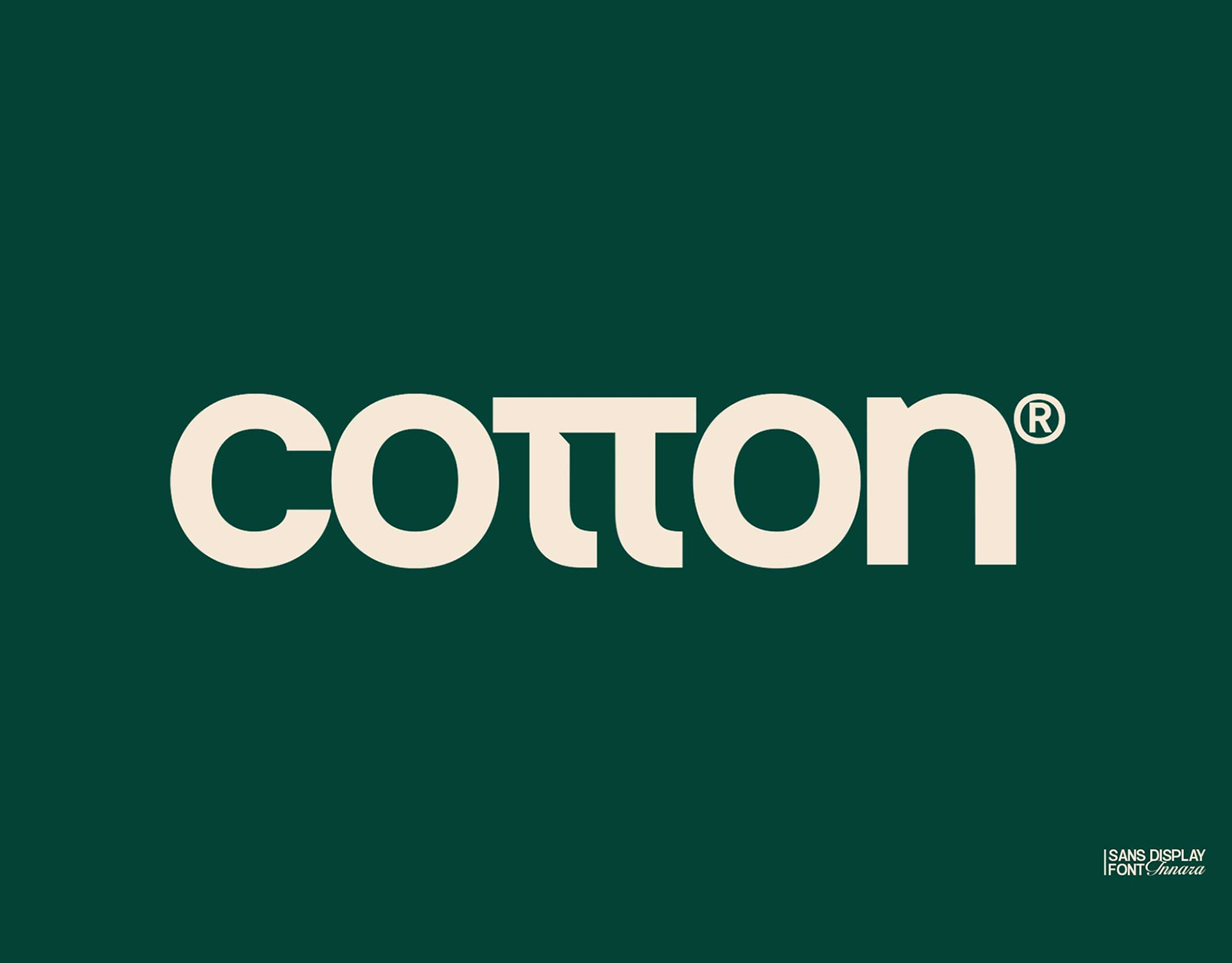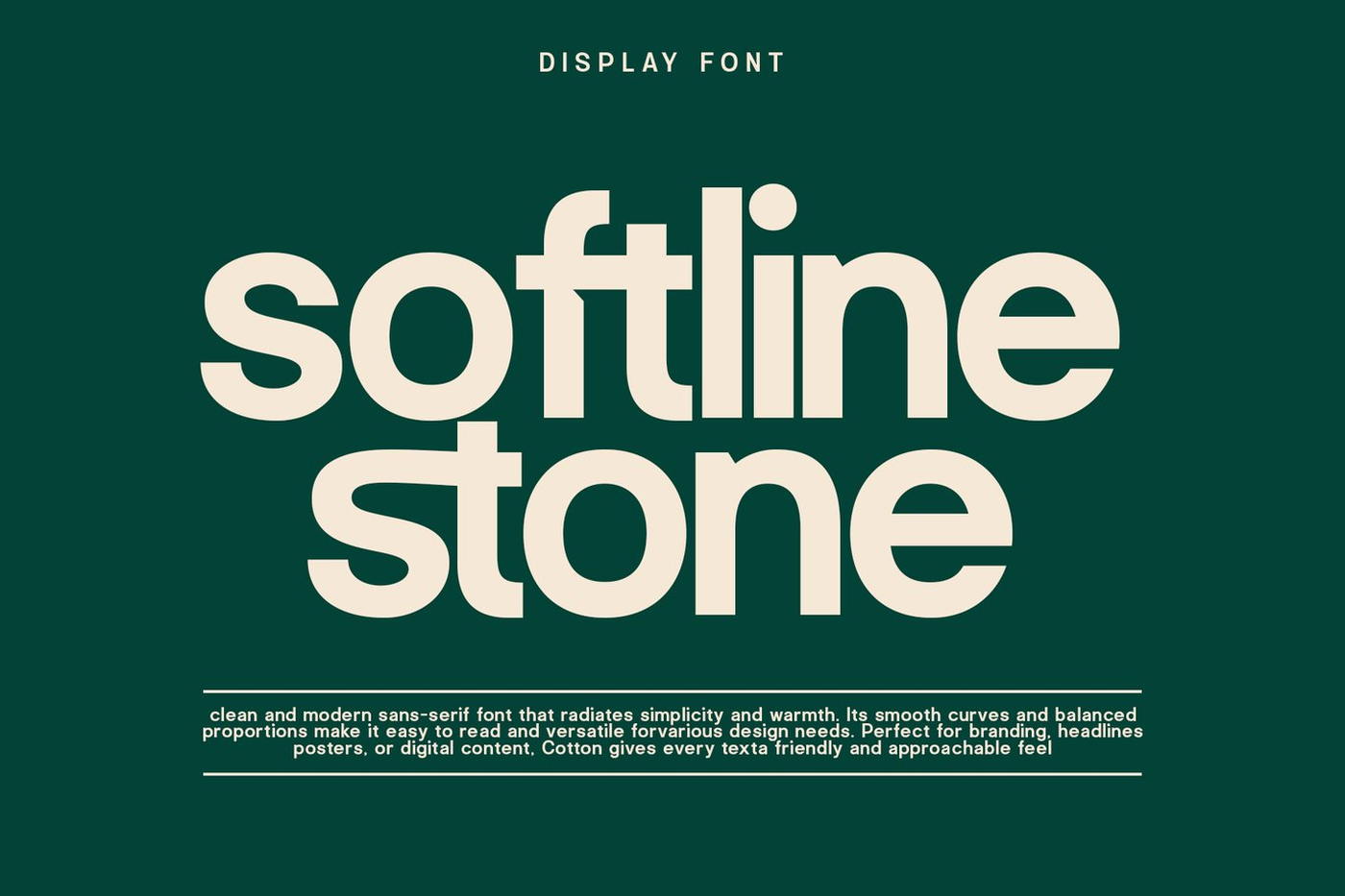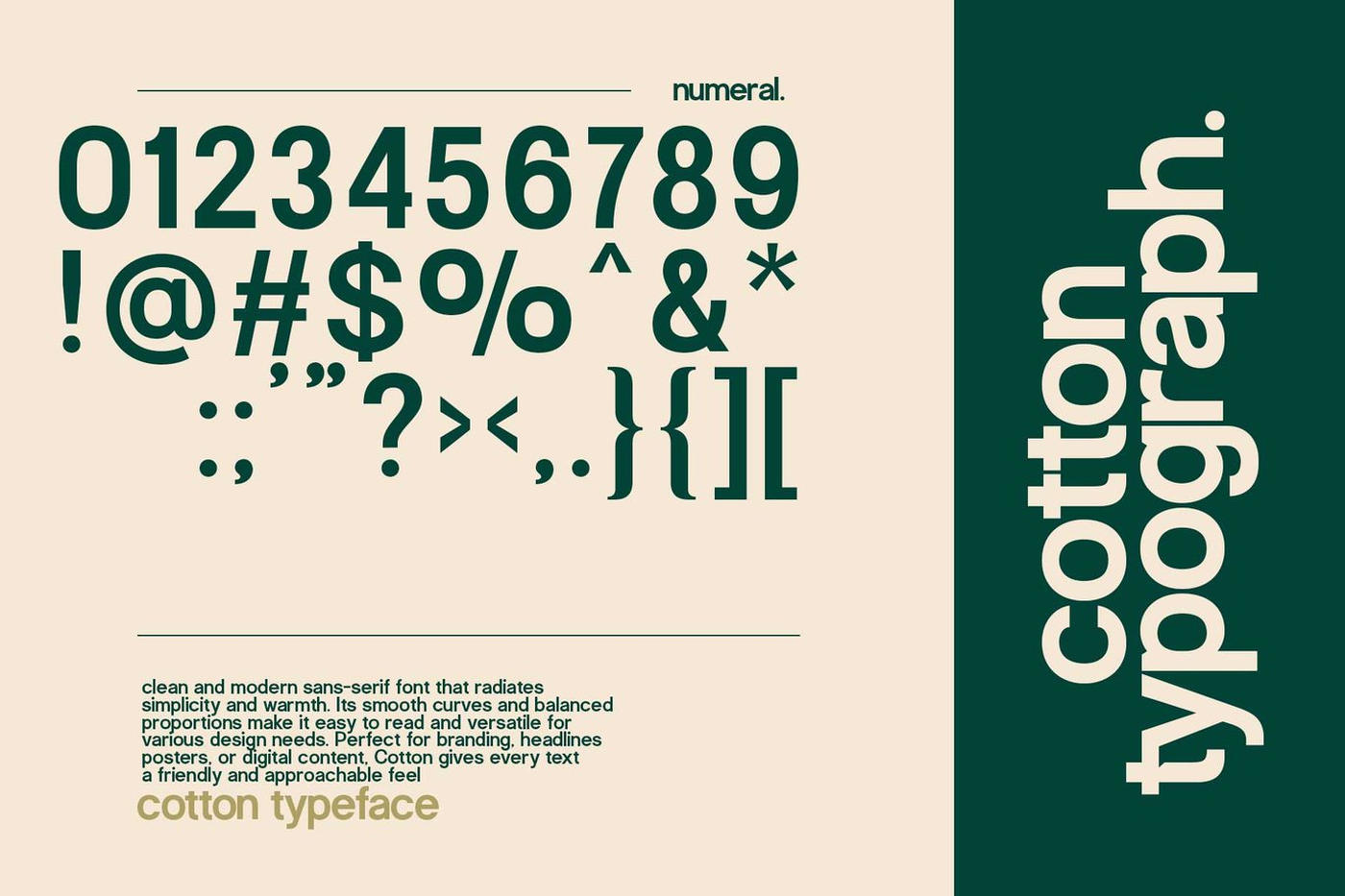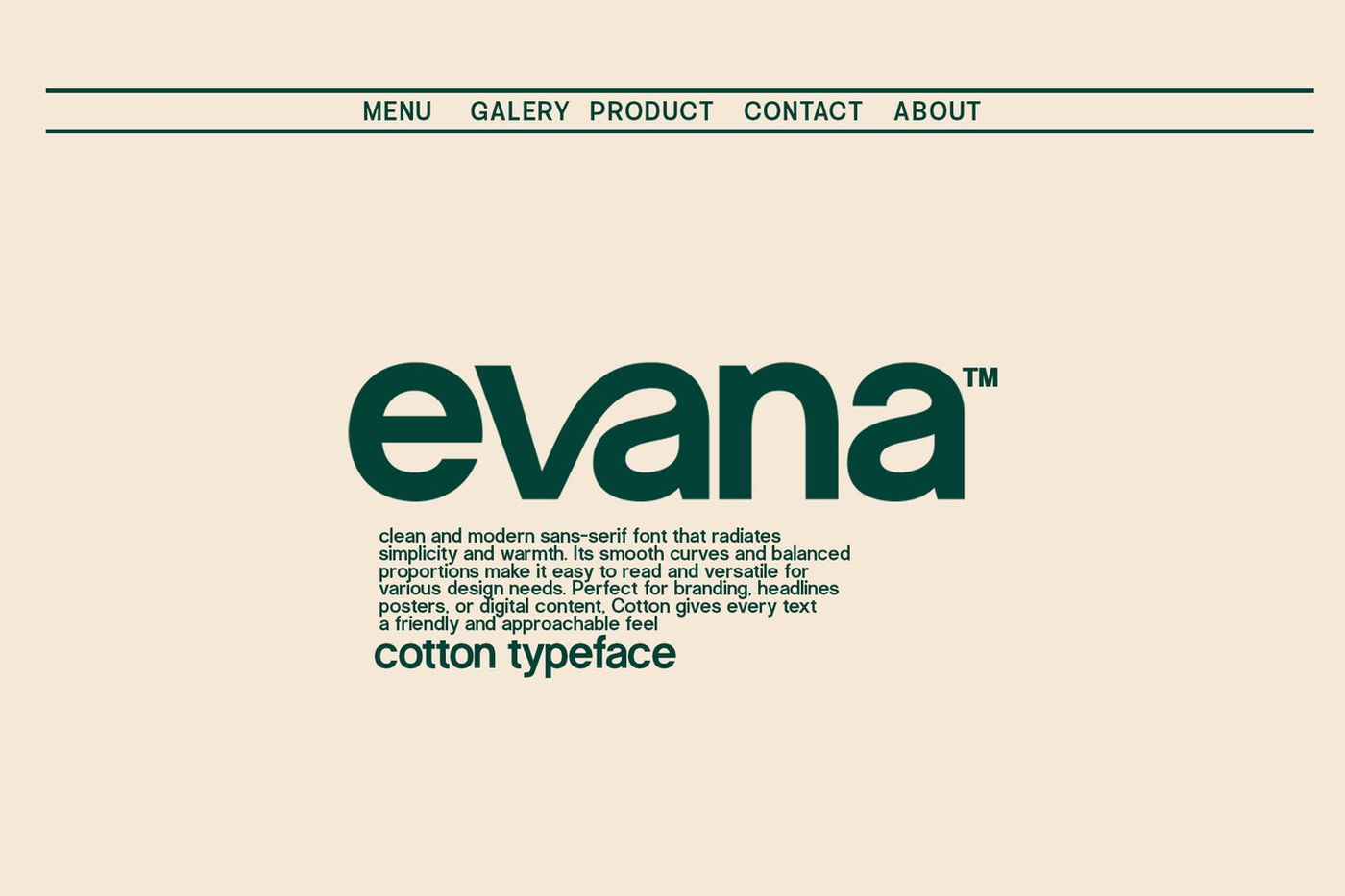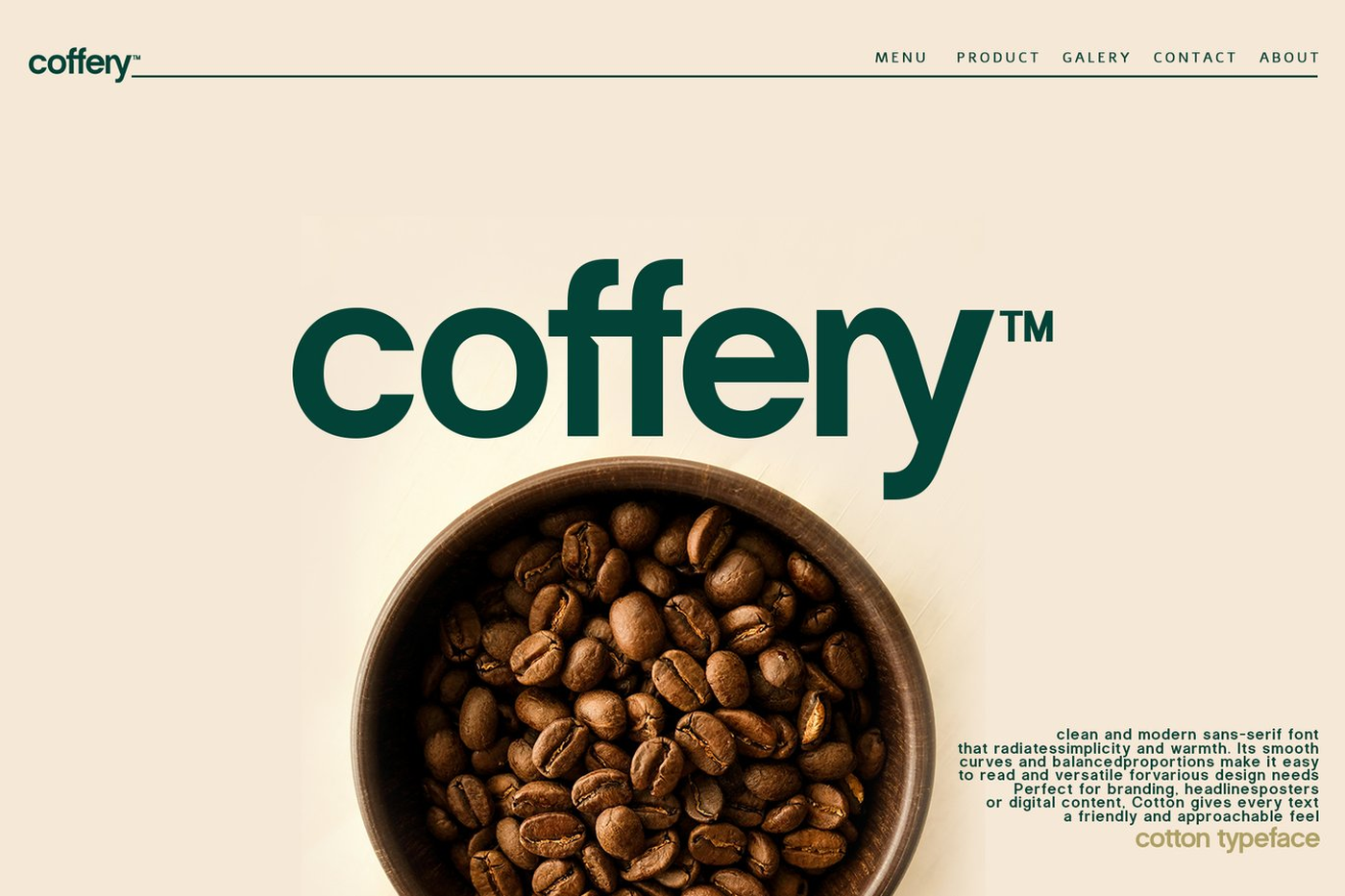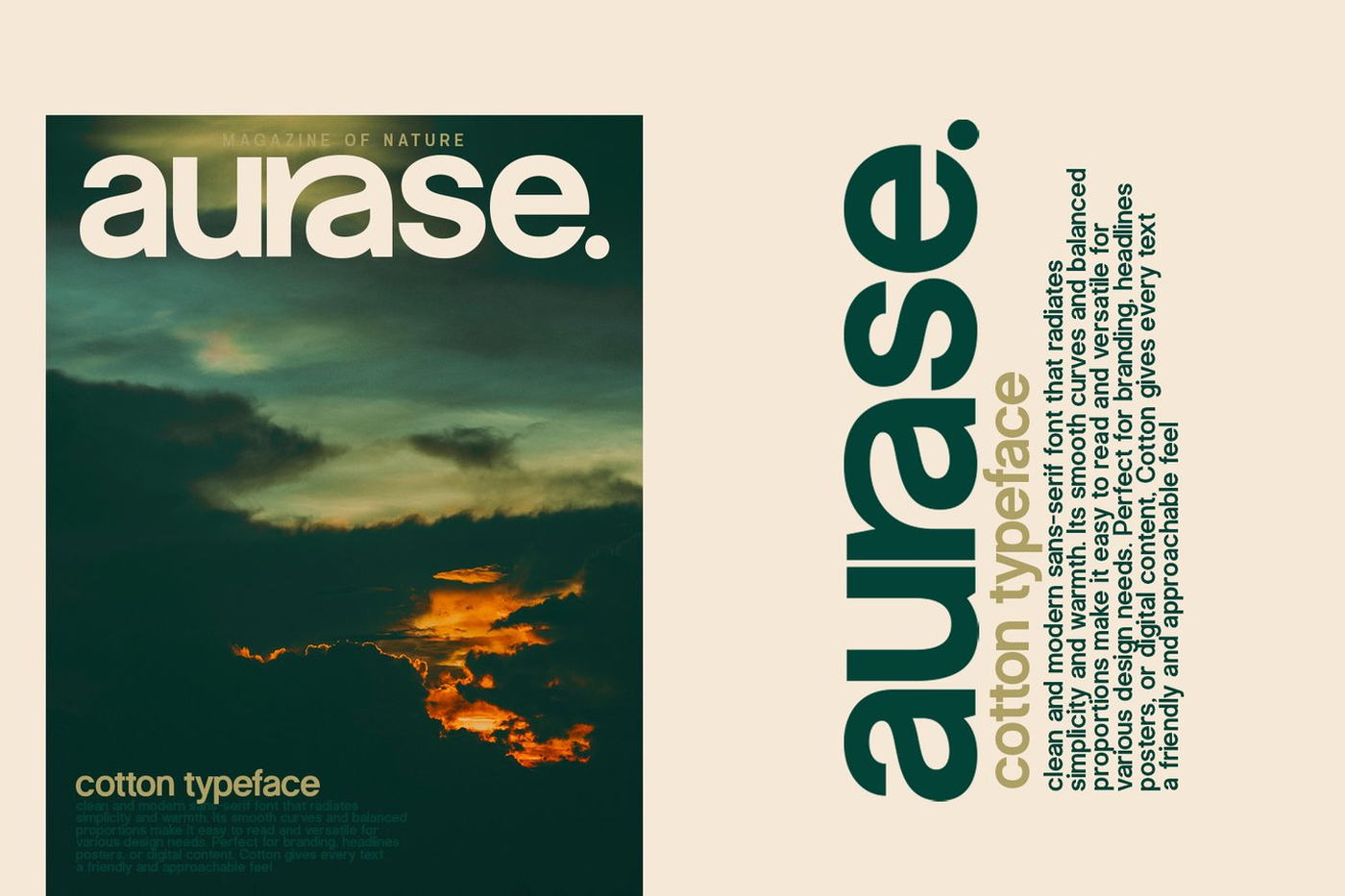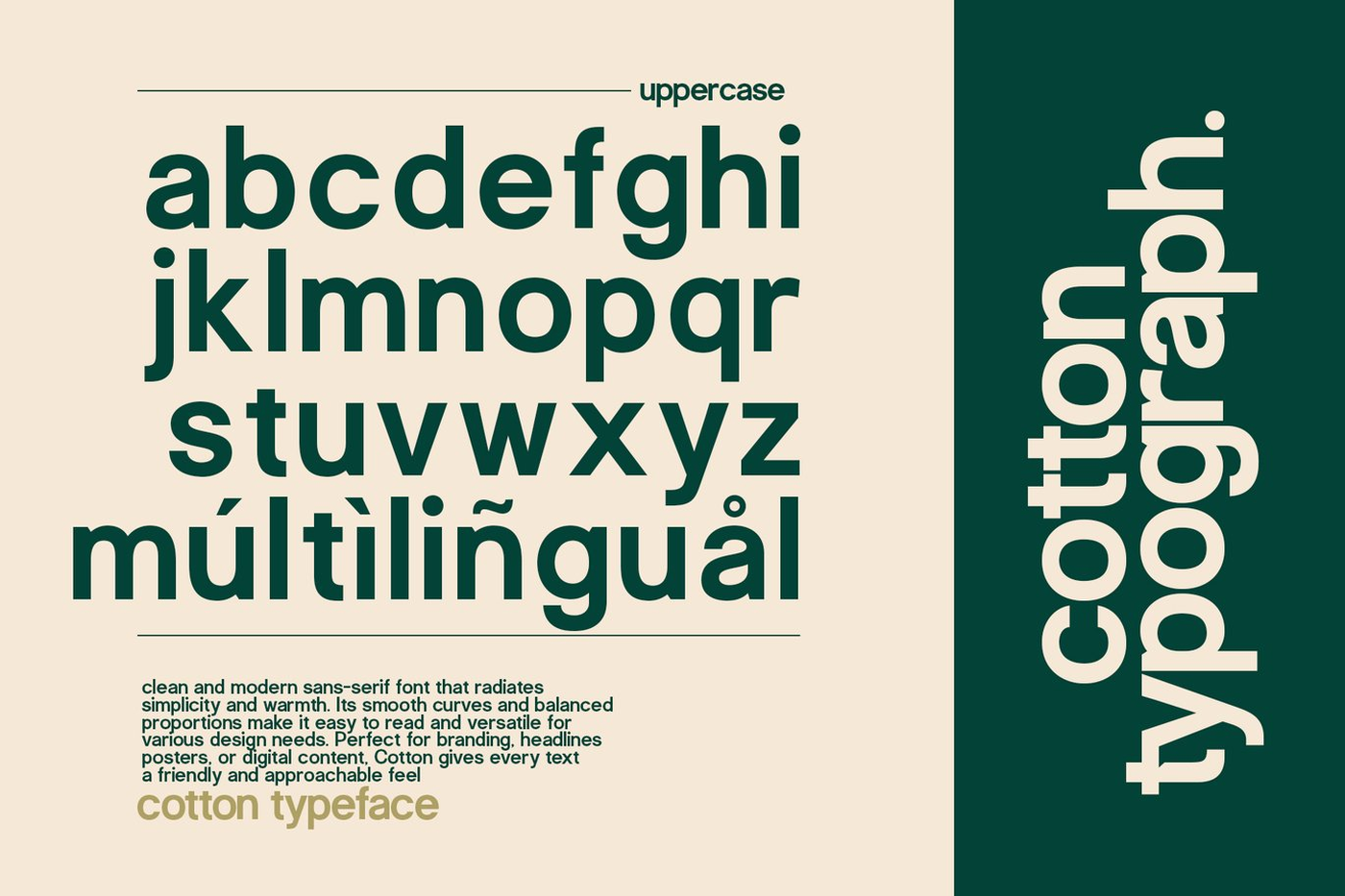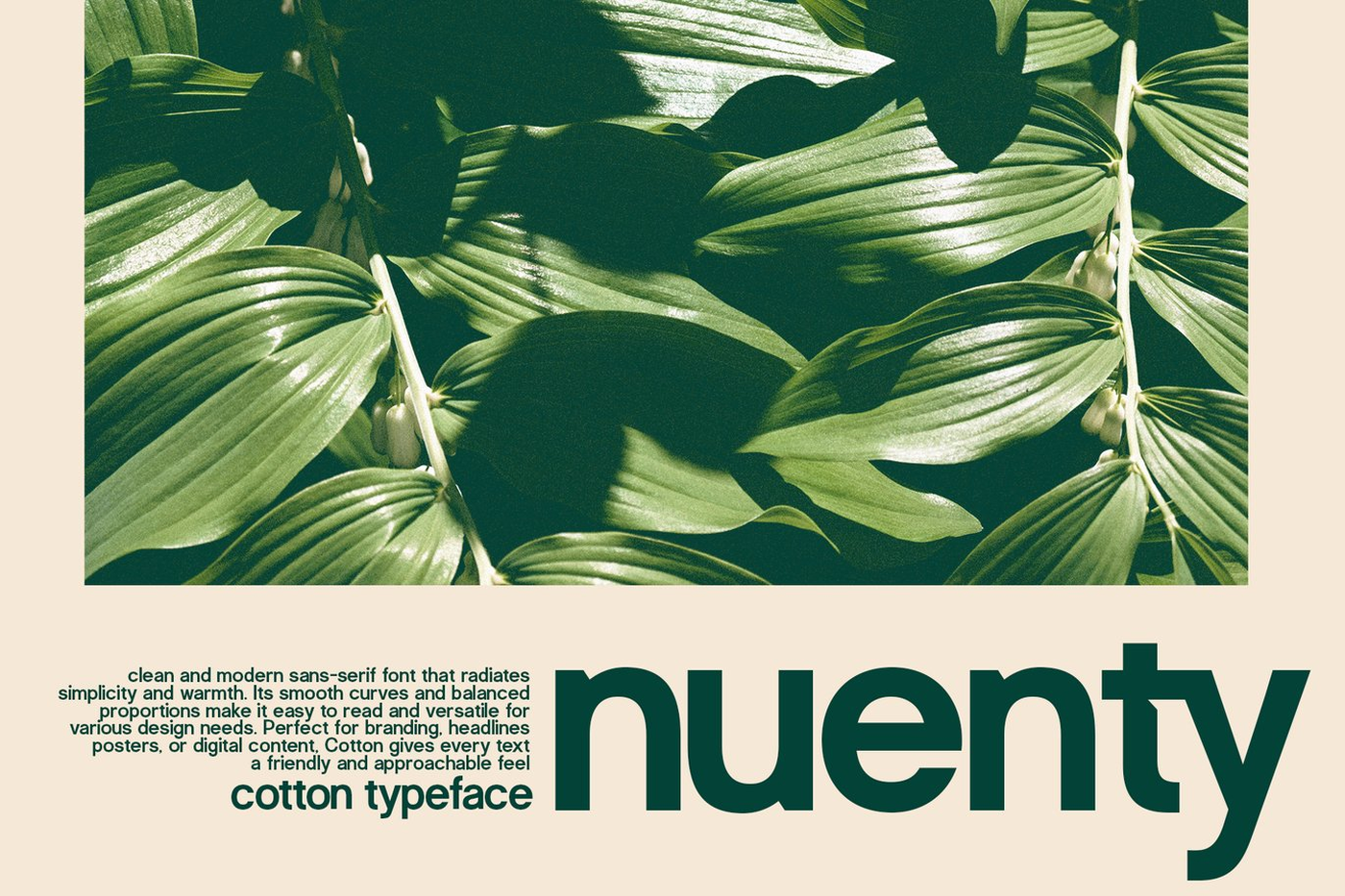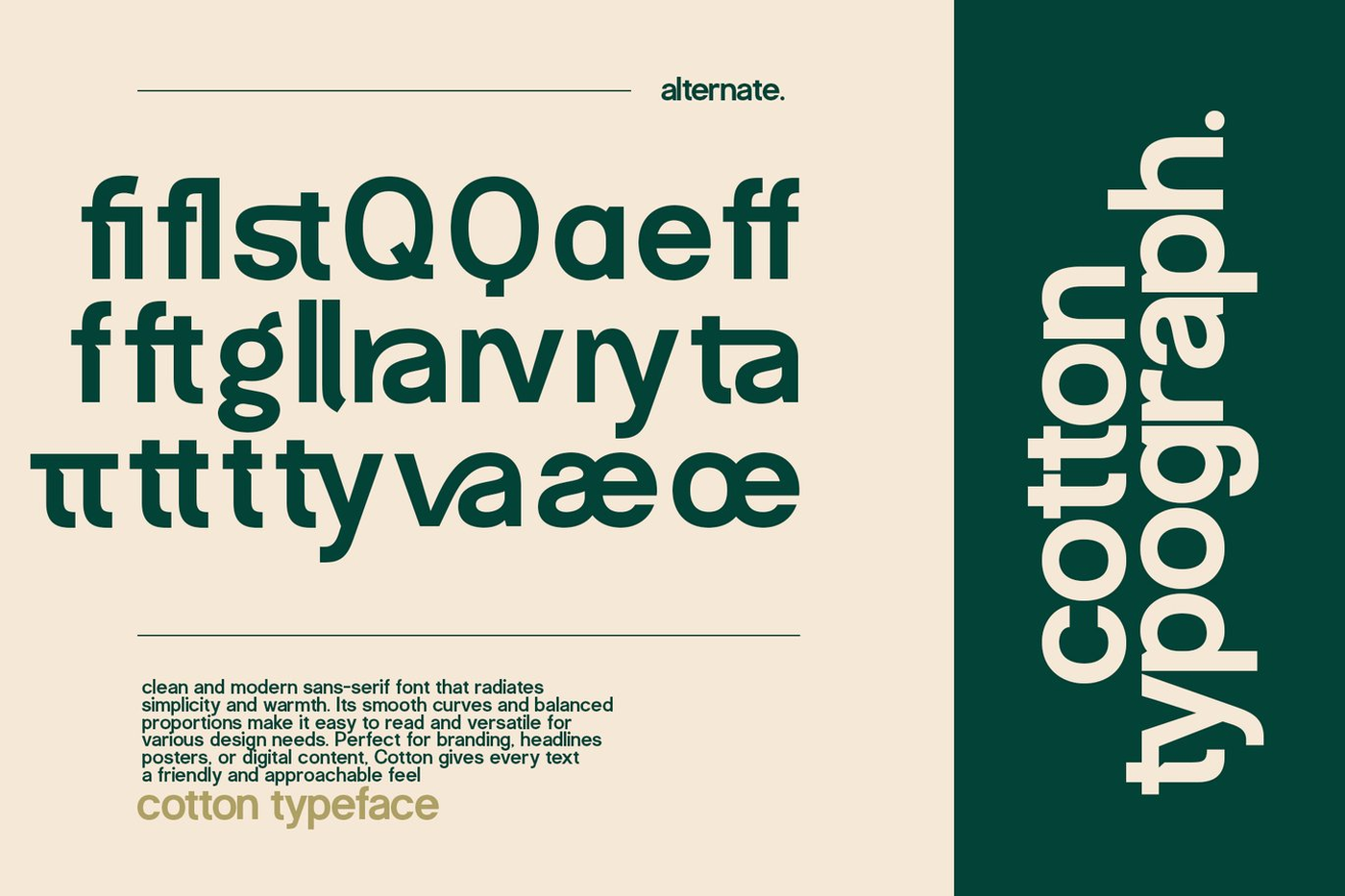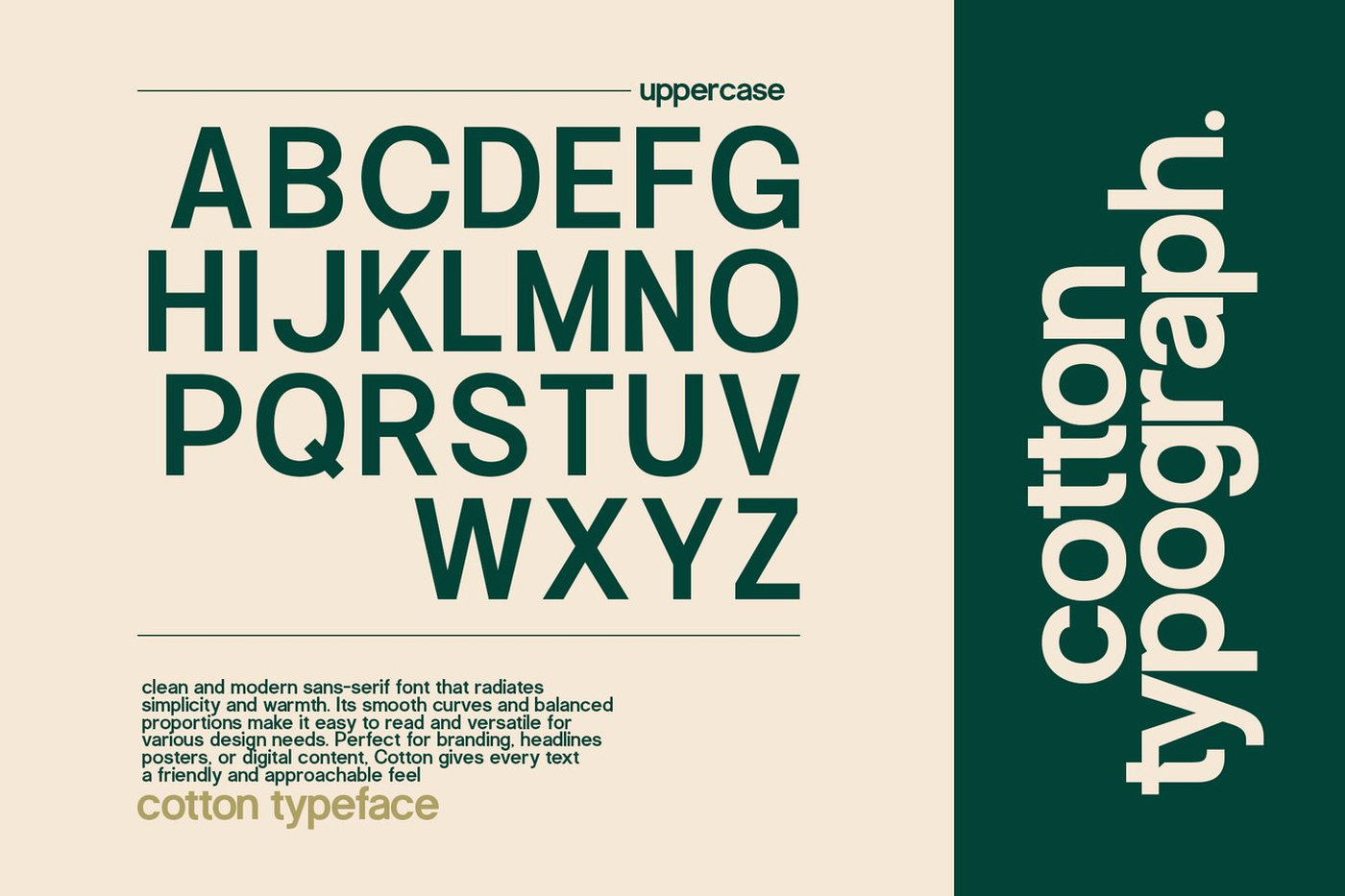
Cotton - Sans Serif Font
Cotton is a modern sans-serif display font crafted to bring elegance in the most effortless way. Clean, refined, and visually charming, Cotton is designed to make your typography stand out with a soft yet confident character. Its smooth curves and balanced proportions make it perfect for branding, packaging, logos, and editorial headlines that need a premium and stylish touch. Featuring simple yet sophisticated ligatures, Cotton adds a unique personality to your designs—subtle, classy, and never overwhelming. Every letter is thoughtfully shaped to deliver a harmonious visual flow, allowing your message to look polished, modern, and memorable.
Designer: Innara
Font: Cotton